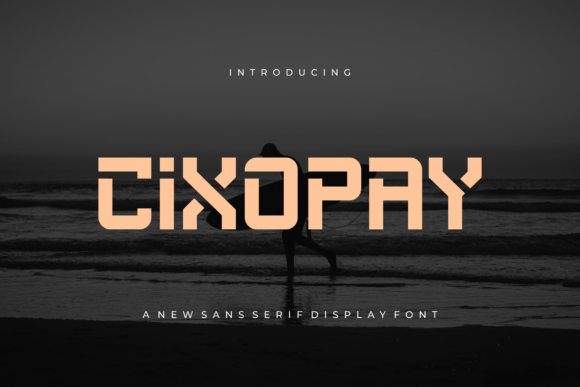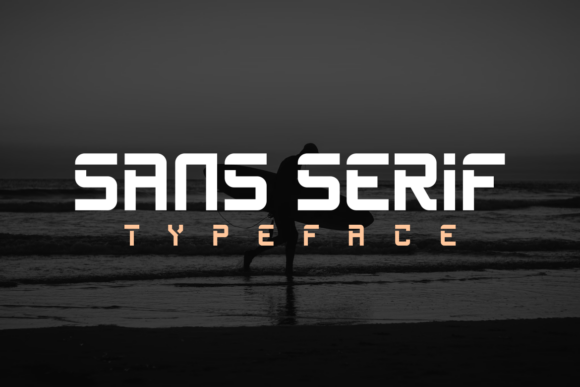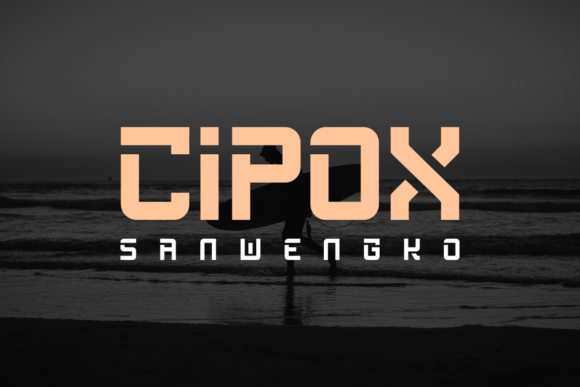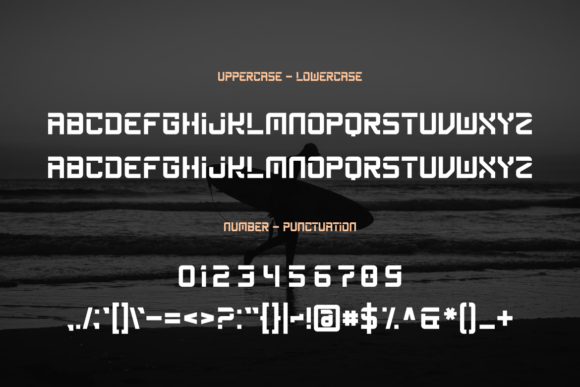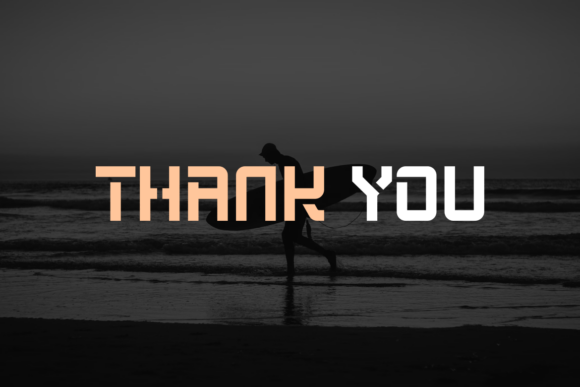
Meet Cixopay Font, a modern sans-serif font designed specifically for easy readability. With its smooth lines and balanced proportions, it’s the perfect solution for both digital and print designs. Whether you’re working on a logo, brochure, or website, Cixopay Font offers a sleek and professional look that’s sure to impress. As a designer, you know how valuable a reliable font can be – and Cixopay Font is just that.
Cixopay Font Key Features
- Character Set: This font features a comprehensive character set, including Latin, Cyrillic, and Greek alphabets, as well as a wide range of punctuation and special characters.
- Unique Characteristics: Cixopay Font features a unique, modern design with a blend of geometric and organic elements, making it stand out from more traditional fonts.
Cixopay Font Review
As a designer, I’ve had the chance to work with a wide range of fonts, and my experience with Cixopay has been quite interesting.
- Unique aesthetic: Cixopay has a distinct, futuristic look that can add a touch of edginess to your designs.
- Highly legible: Despite its unconventional design, Cixopay is surprisingly easy to read, making it a great choice for body text.
- Good for digital use: The font’s clean lines and minimal ornamentation make it well-suited for digital applications like web design and mobile apps.
- Limited font styles: Cixopay only comes in a few font weights, which can limit its versatility in certain designs.
- Not suitable for print: The font’s digital nature makes it less effective for print materials, where a more traditional font might be a better choice.
- May not be accessible: The font’s unique design may not be easily readable for people with certain visual impairments or reading difficulties.
Overall impression
Cixopay is a bold, modern font that can add a lot of character to your designs. While it has its limitations, it’s a great choice for digital applications and can be a great addition to your font library. However, it may not be the best choice for print materials or designs that require a more traditional font.
Some tips for getting the most out of the Cixopay font include:
– Using it for titles and headings to add a touch of elegance.
– Pairing it with other fonts to create a unique and interesting typography.
– Using it in creative projects such as logos, posters, and infographics.
– Applying it to text elements in your designs to add a touch of sophistication.
Alternatives to Cixopay Font for Designers
Montserrat is a sans-serif font designed by Julieta Ulanovsky. It is a great alternative to Cixopay Font for designers who need a modern, clean, and highly legible font. Montserrat is ideal for use in digital products, apps, and websites where readability is crucial. Compared to Cixopay Font, Montserrat has a more geometric and minimalist design, making it a great choice for modern branding and design projects.
2. Inter Font
Inter Font is a sans-serif font designed by Rasmus Andersson. It is a highly versatile font that can be used in a wide range of design projects, from digital products to print materials. Inter Font is a great alternative to Cixopay Font for designers who need a font with a clean and minimalist design. Compared to Cixopay Font, Inter Font has a more refined and polished look, making it a great choice for luxury branding and design projects.